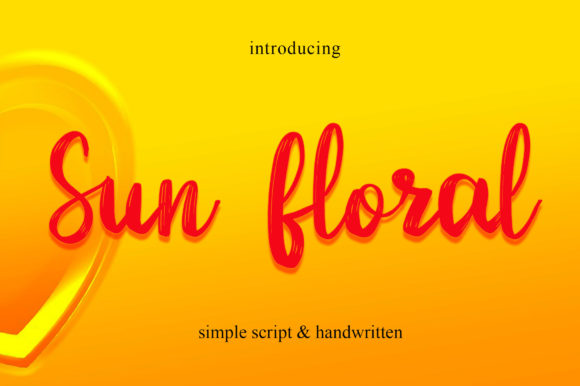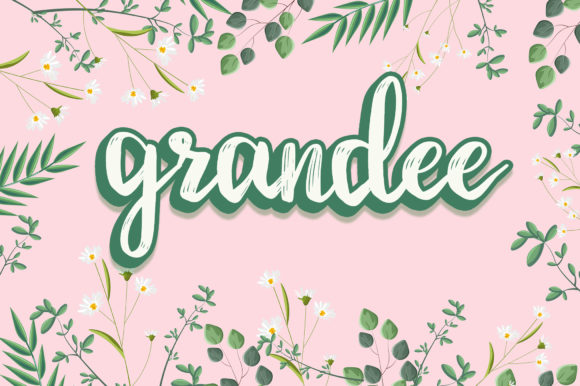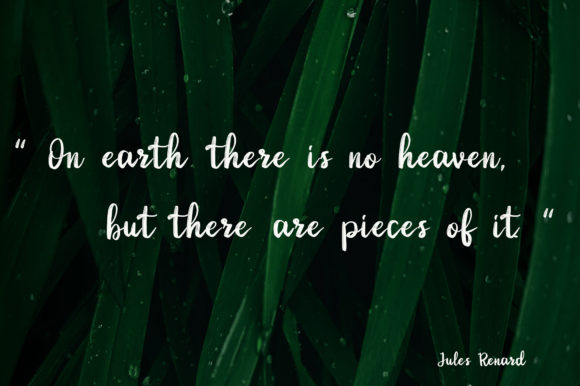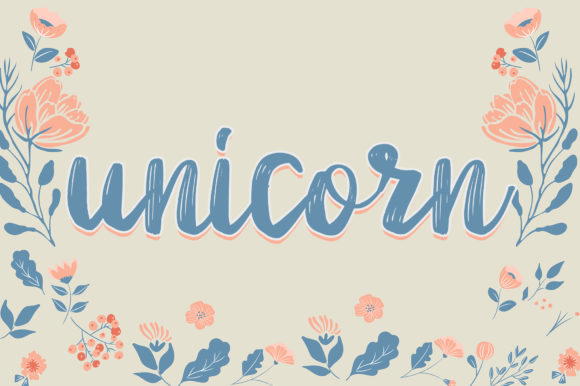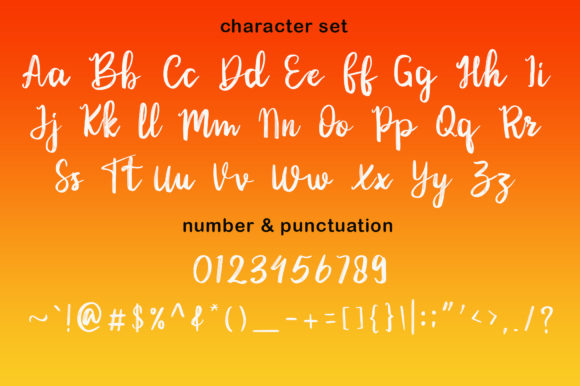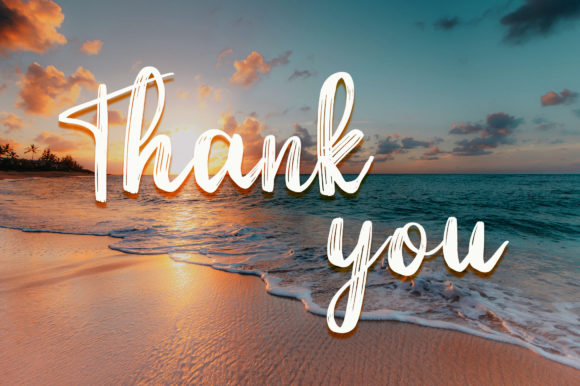
About Sun Floral Font
Sun Floral is a lovely, flowing and delicate paint brushed script font. This font can be used for various creations, both formal and informal. Your imagination is the only limit.